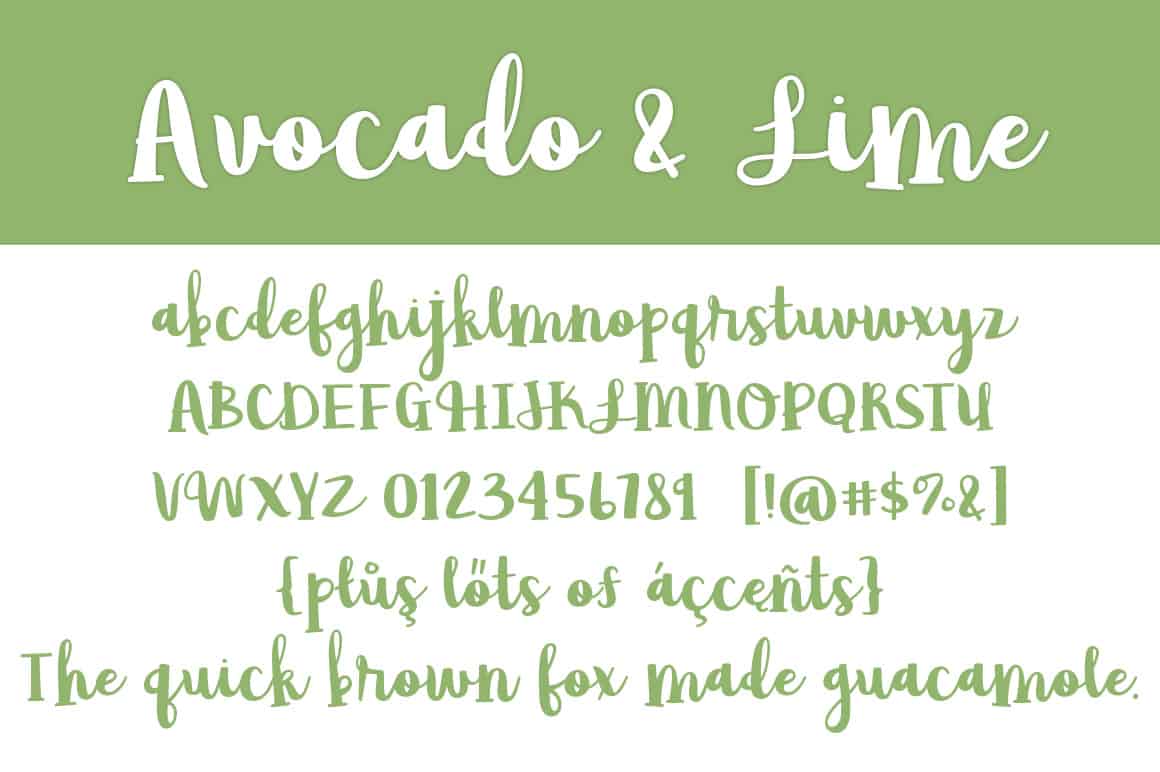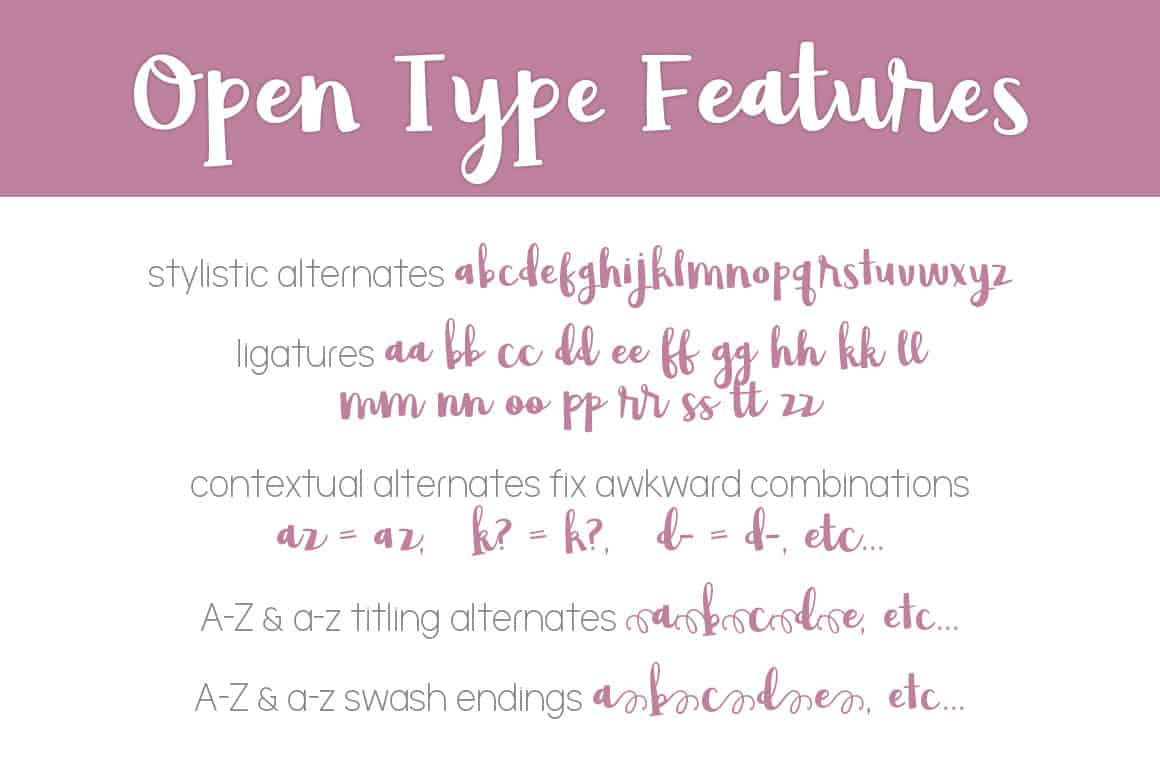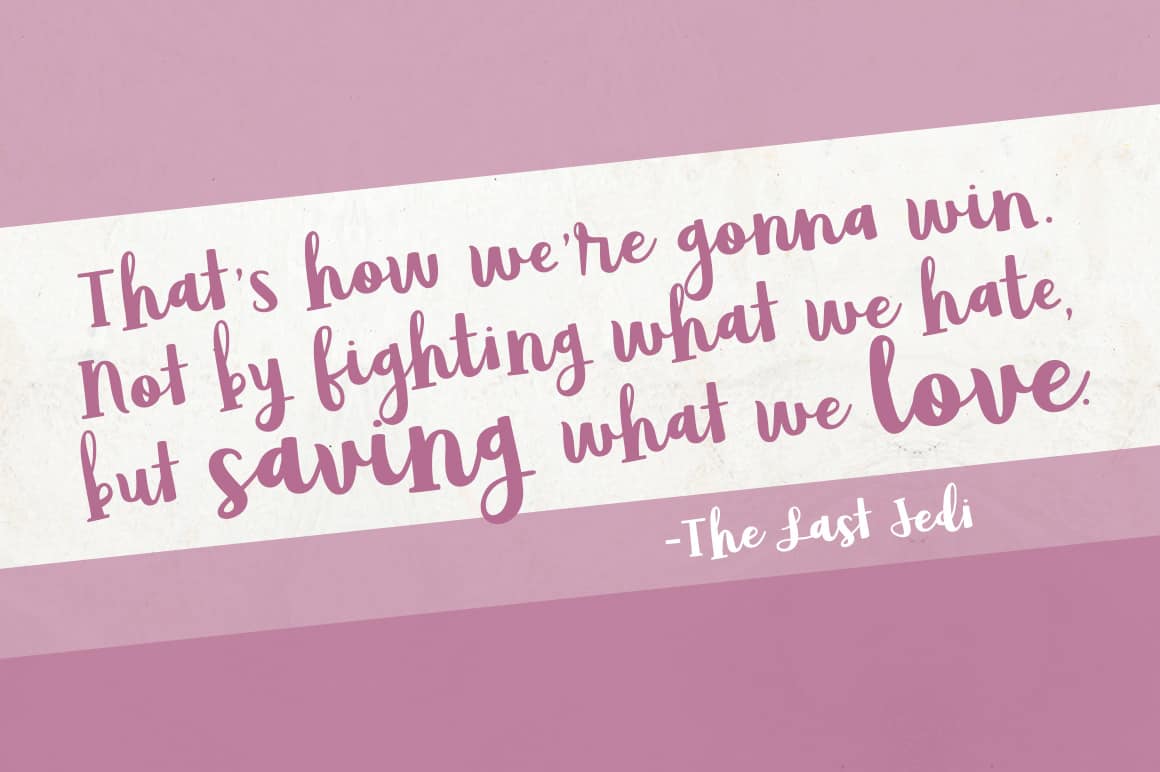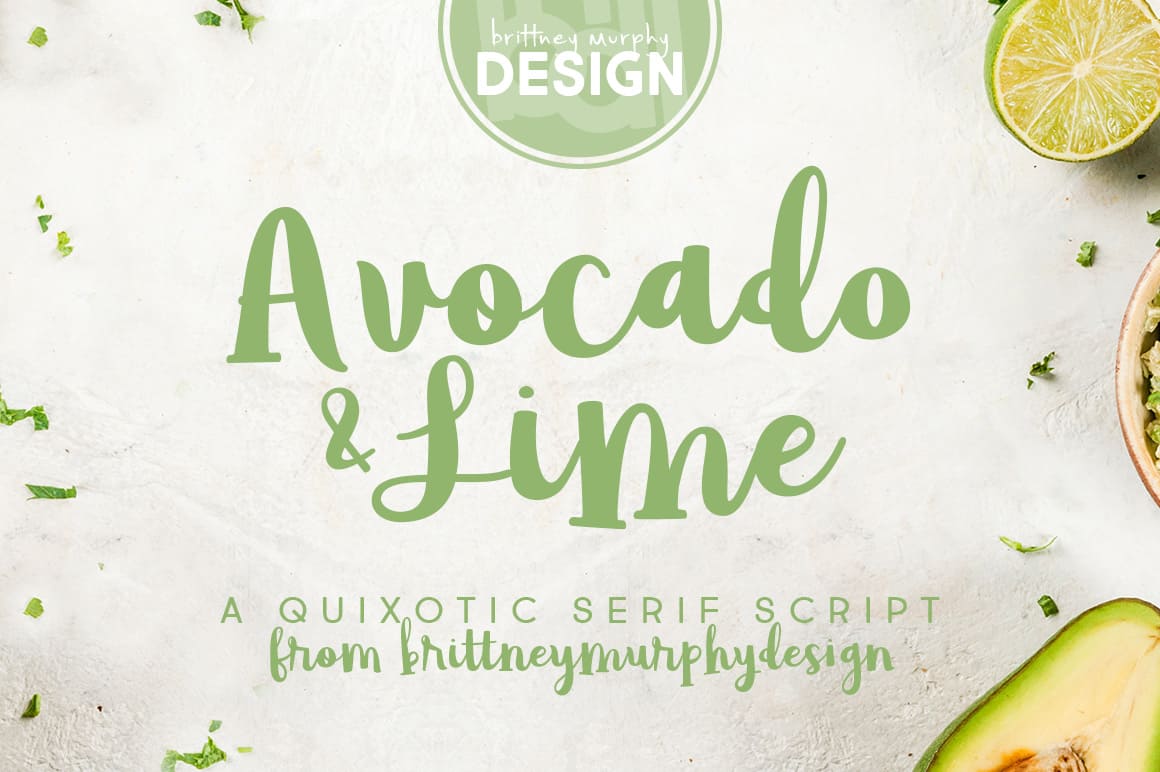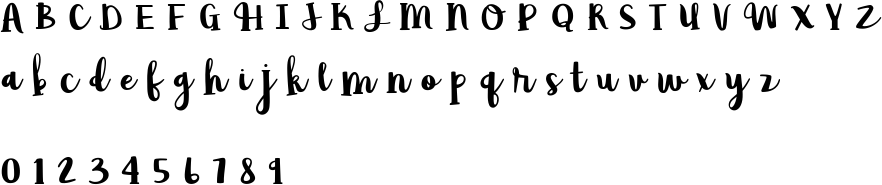
Avocado and Lime
Avocado & Lime Title
Avocado & Lime Quote
Avocado & Lime Quote 2
Avocado & Lime Open Type
Avocado & Lime Letters
The Avocado and Lime font  is a bold and quirky serif script that was created in 2017 by Brittney Murphy Design. Avocado and Lime includes 358 characters including open type ligatures, stylistic & contextual alternates, and swashes, and supports most latin based languages. Avocado and Lime is great for your logos, bylines, and giving any of your graphic design projects a need a distinctive feeling.
Avocado And Lime
Avocado And Lime- Preview Image
Avocado and Lime Character Map